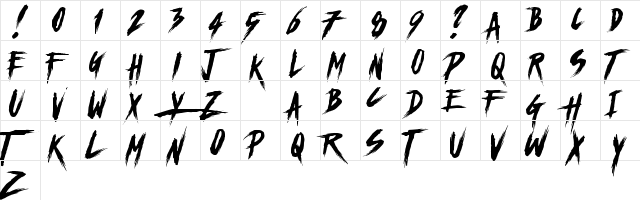
Chapters DEMO Regular Font Preview
Chapters DEMO Regular
Design Context for Chapters DEMO Typeface
Chapters DEMO is a composed and adaptable typeface that performs quietly and consistently across a wide range of design contexts.
Pro Tip: Use Chapters DEMO in both headline and body roles to test its range before committing to a single application.